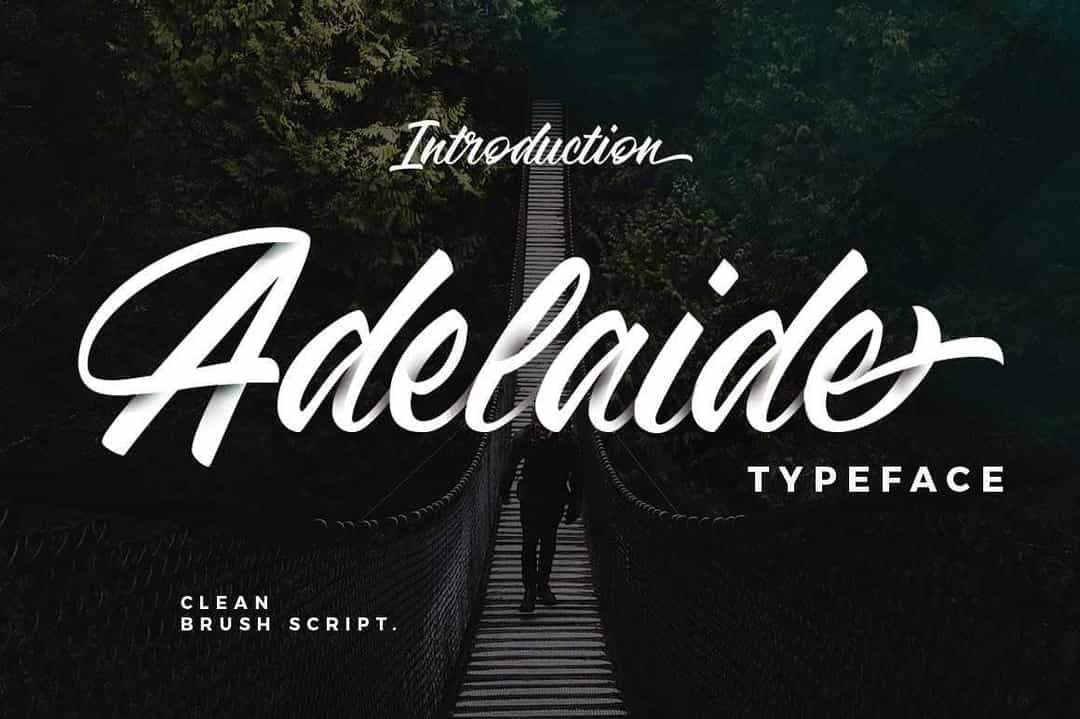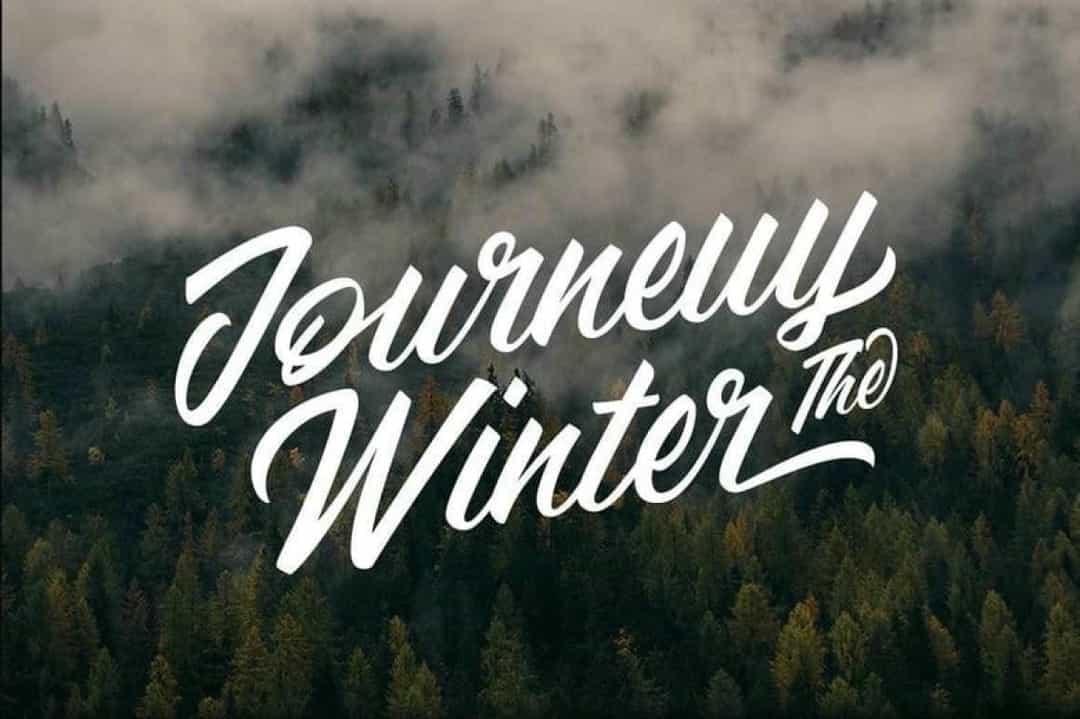
Hello there! If you have been looking for an alphabet script brush, then here is a great place to find one. Look no further. Meet Adelaide by Megi. satyo; the elements of the script as well as its sensuous style makes this text font appropriate especially for logos, posters, branding, materials, quotes or even for labels of products, merchandise or name tags among others.